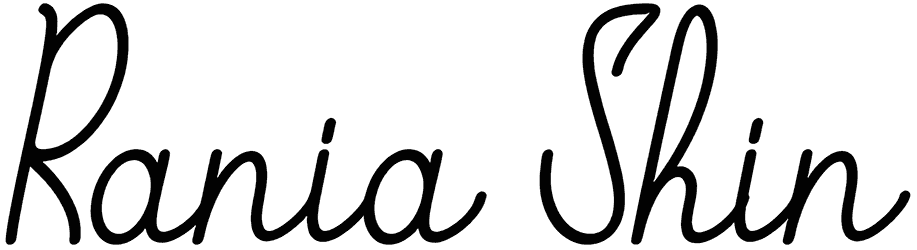
Rania Shin Font
You can surely count on a modern and casual letterform like this handwritten font to create a ravishing visual for your layout. The characters of the Rania Shin font have a smooth, cursive, and realistic form that will make your fashion Instagram post level up. This neon font doesn’t support all numbers, yet it will work well for different projects.